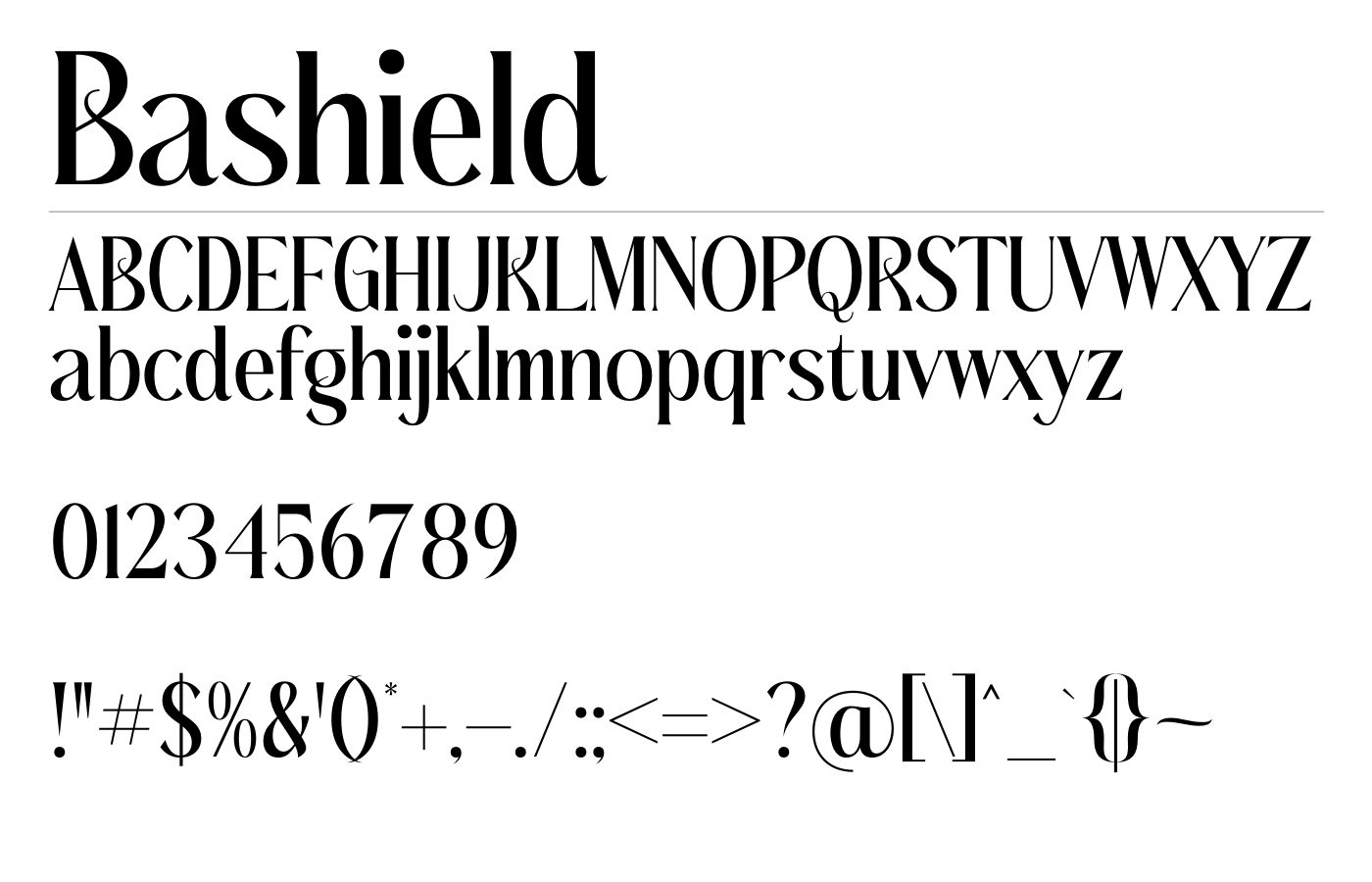
Bashield is an elegant serif font with a high contrast between thick and thin strokes, featuring distinctive, narrow letterforms and refined bracketed serifs that give it a sophisticated, modern feel. Its unique details, such as the stylish curves on characters like "B," "Q," and the ampersand, make it well suited for luxury branding, editorial headlines, and upscale packaging where a touch of class and individuality is desired. This font works best for display purposes, delivering a strong presence of elegance and refinement.
Bashield Font
About Bashield Font